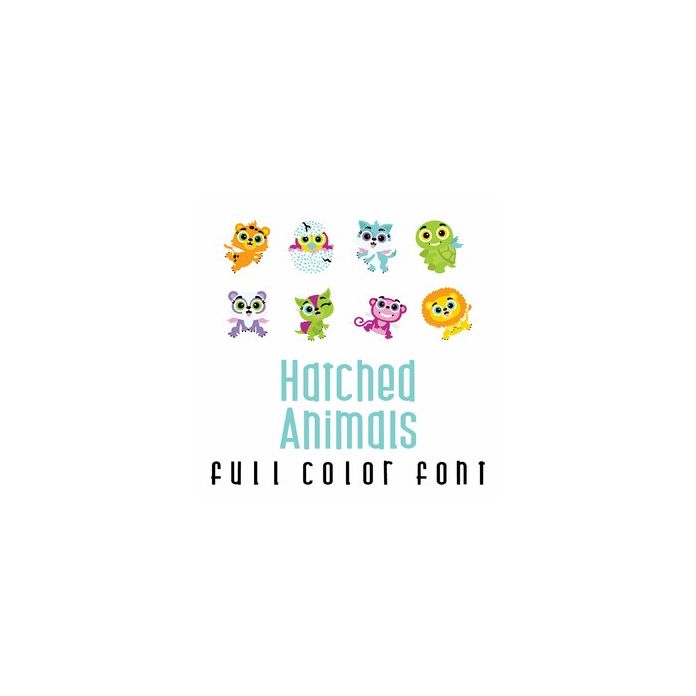
This adorable full-color doodlebat font features cute fantasy animals that hatch from eggs. Perfect for cards, crafts, gifts, decor, scrapbook pages, planner stickers, and more!